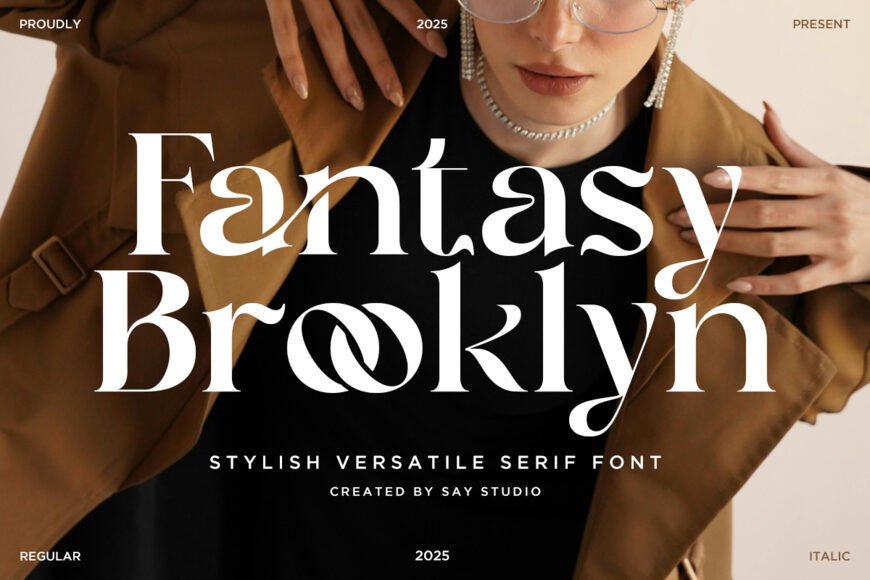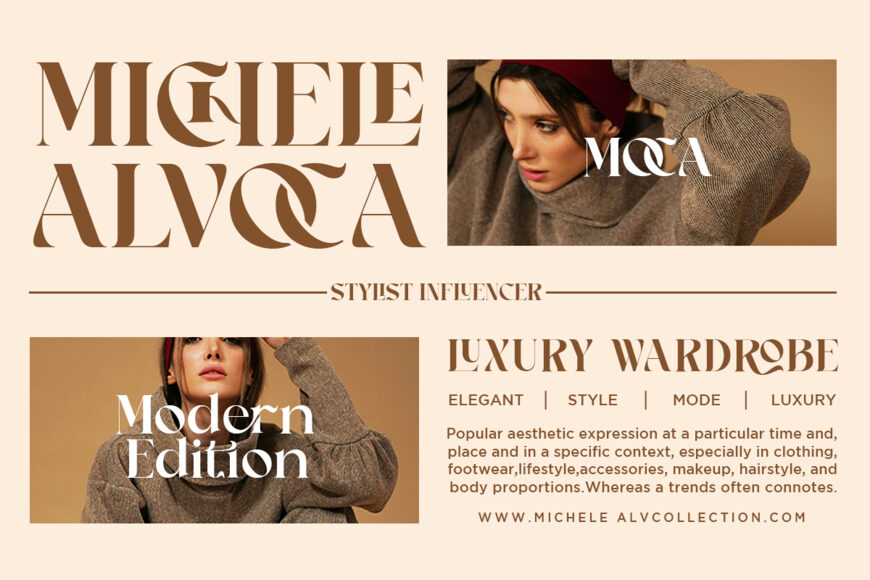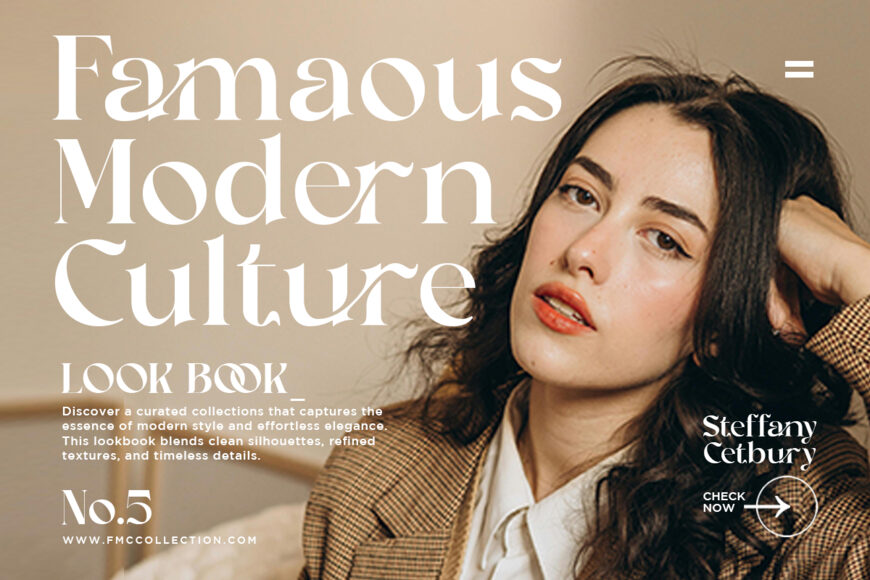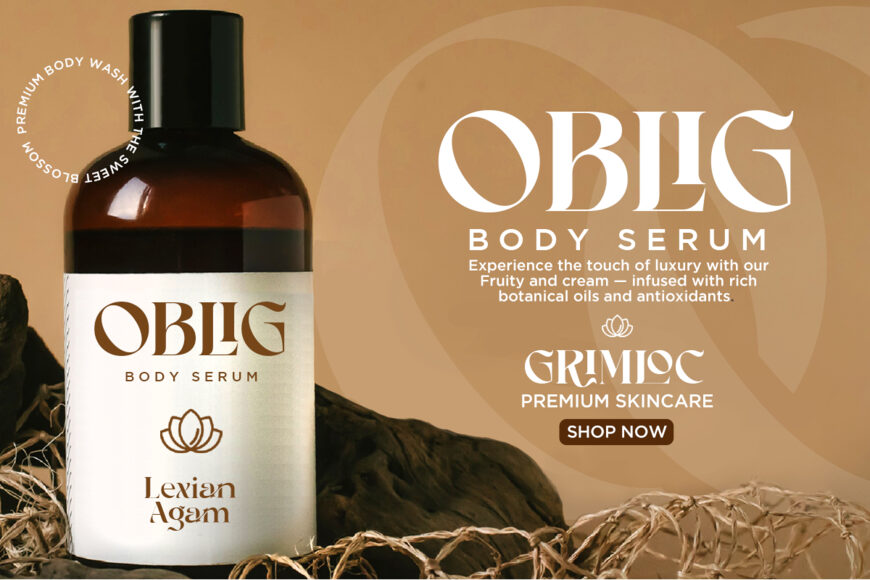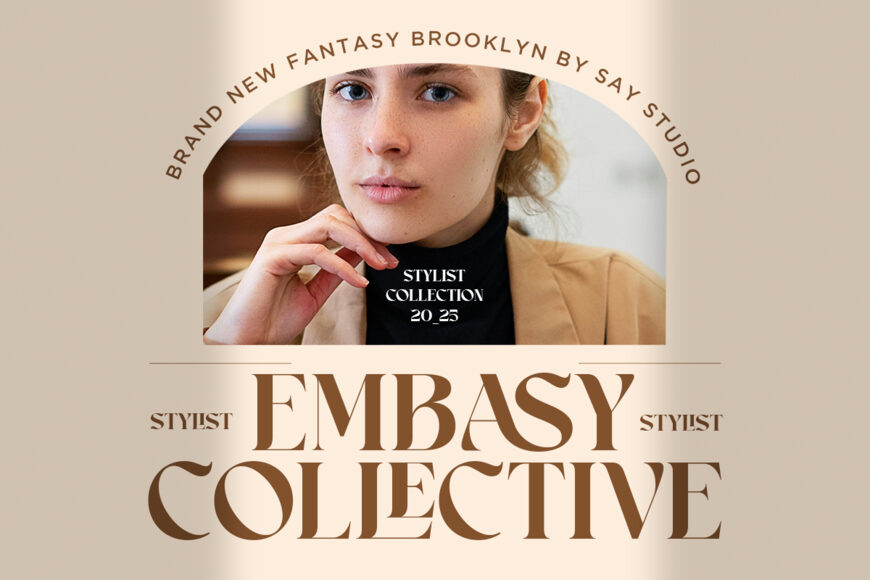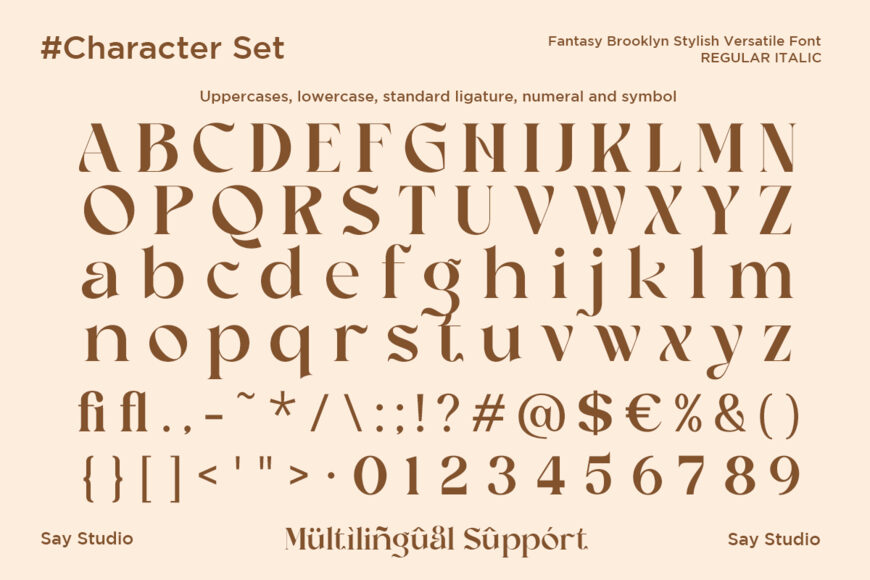
Fantasy Brooklyn is a stylish versatile serif typeface that blends timeless elegance with contemporary sophistication. Featuring distinctive artistic ligatures, refined curves, and graceful proportions, this typeface creates luxurious typography that feels both fashionable and memorable.
Designed for premium visual communication, Fantasy Brooklyn delivers exceptional beauty across branding, editorial, packaging, and high-end creative projects.